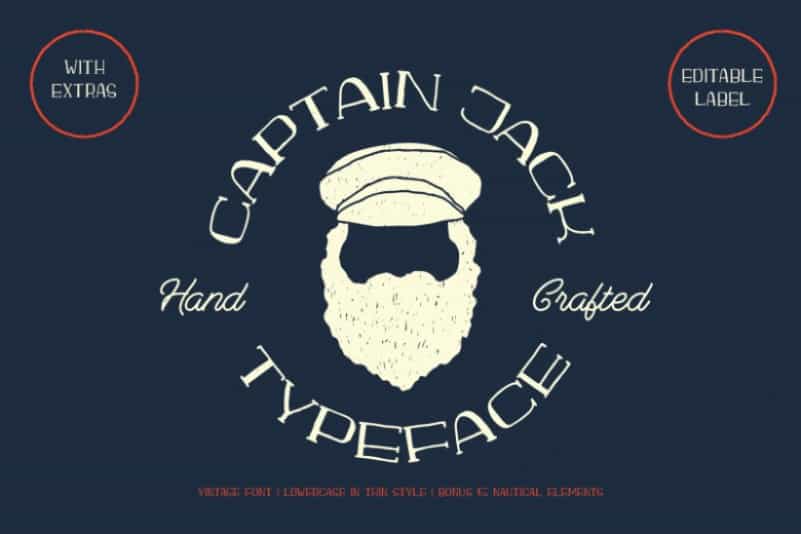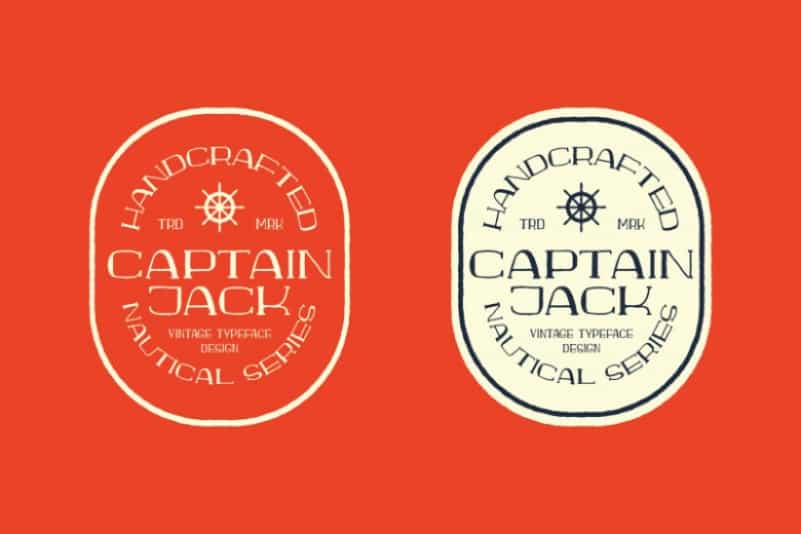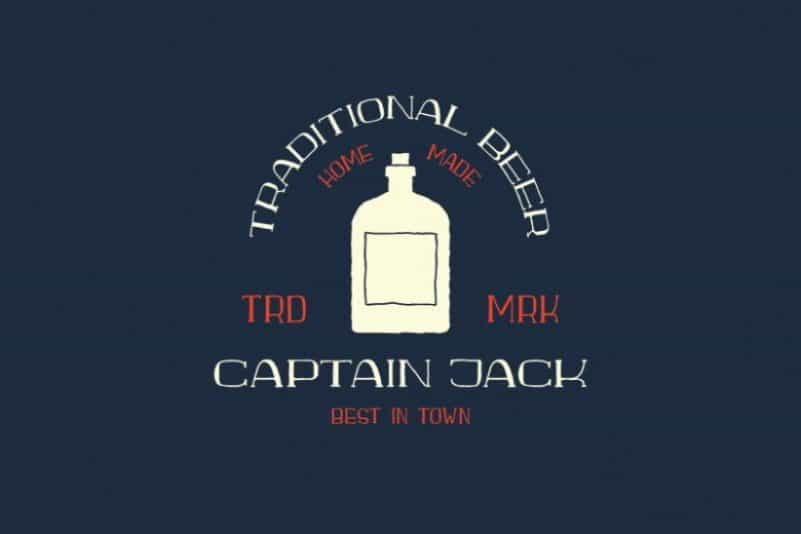
Captain Jack, the one you can trust on when it comes to the ship. The way the font is designed with wide condensed serif, irregular handwriting, but it still can be read very well. It fits in with any old vintage label and poster. Captain Jack font it’s the best for name card, poster, logo, magazine cover or banner t-shirt and headers even large-scale artwork.